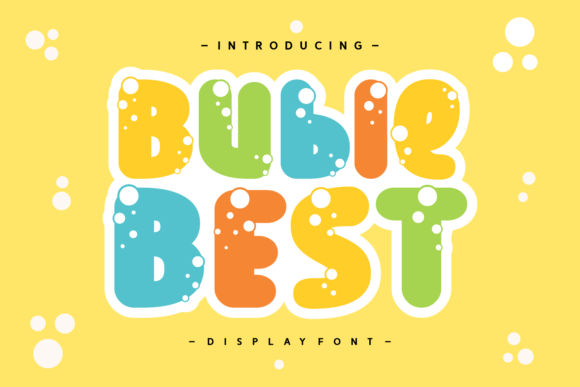
The Perfect Font for a Fun and Lighthearted Touch
Have you ever stared at a blank page, struggling to find the perfect font to bring your creative project to life? We’ve all been there, and it’s a frustrating feeling. But what if I told you that the solution is just a few clicks away? Introducing the Buble Best Font, a bubbly and bulky display font that’s guaranteed to add a fun and playful touch to any project.
This versatile font is perfect for designers looking to create a sense of friendliness and approachability, while its bold and bulky design adds a touch of strength and power. With the Buble Best Font, you can add a lighthearted and whimsical feel to your designs, making it an invaluable tool for any creative project. Whether you’re working on a children’s book, a marketing campaign, or a social media graphic, this font is sure to bring a smile to your audience’s faces.
Bubble Best Font Key Features
- Unique Characteristics: Features a unique bubble-inspired design, with rounded edges and subtle texture, perfect for creative and modern designs.
- Font Weight: Offers a range of font weights, from Light to Black, allowing for flexibility in design and styling.
Bubble Best Font Review
Overall, I have mixed feelings about the Bubble Best Font. While it has some great features, it also has some limitations that make it a less-than-ideal choice for some projects.
- Unique, playful design: The Bubble Best Font has a fun, whimsical feel to it that’s perfect for creative projects or branding that wants to stand out.
- Good legibility: Despite its playful design, the font is still easy to read and understand, even at smaller font sizes.
- Wide compatibility: I was able to use the font seamlessly across different devices and browsers.
- Limited font sizes: The font starts to look a bit blurry or distorted when used at very small or very large font sizes.
- No bold or italic options: While the font has a fun design, it would be nice to have some additional weight options to add some variety to text.
- Not suitable for formal projects: Due to its playful design, the Bubble Best Font might not be the best choice for more formal or professional projects.
Overall, I’d say the Bubble Best Font is a fun, playful option that’s perfect for creative projects or branding that wants to stand out. However, it’s not the best choice for formal or professional projects, and it may have some limitations in terms of font sizes and weight options.
Tips for Getting the Most Out of Bubble Best Font
For optimal results, use Bubble Best Font in conjunction with bold or italic text to create visual interest.
Experiment with different font sizes and styles to achieve the desired aesthetic.
Bubble Best Font is ideal for creating playful, eye-catching headings and titles.
It’s also great for adding a touch of whimsy to social media graphics, blog posts, and other digital content.
Alternatives to “Buble Best Font” for Designers
Bubble Best Font is a popular font choice, but there are other options that designers can consider. Here are a few alternatives:
Pacifico is a beautiful and elegant script font that is reminiscent of the classic handwritten style. It is suitable for use in invitations, greeting cards, and other creative projects where a touch of sophistication is needed. Pacifico has a more refined and polished look compared to Bubble Best Font, making it a good choice for designs that require a high level of sophistication.
Q: Can I customize the font to fit my specific design needs?
Bubble Best Font is a scalable font, allowing you to adjust its size, color, and style to suit your design requirements. However, significant modifications to the font’s structure may require advanced font editing skills and software.